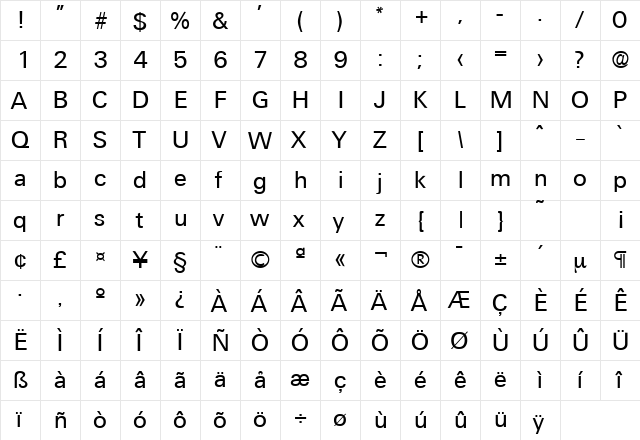
Ultimate-Serial Regular
Design Context for Ultimate-Serial Typeface
Ultimate-Serial offers clean, dependable letterforms without strong stylistic allegiance, making it a practical choice for designers who need flexibility.
Pro Tip: Use Ultimate-Serial in both headline and body roles to test its range before committing to a single application.